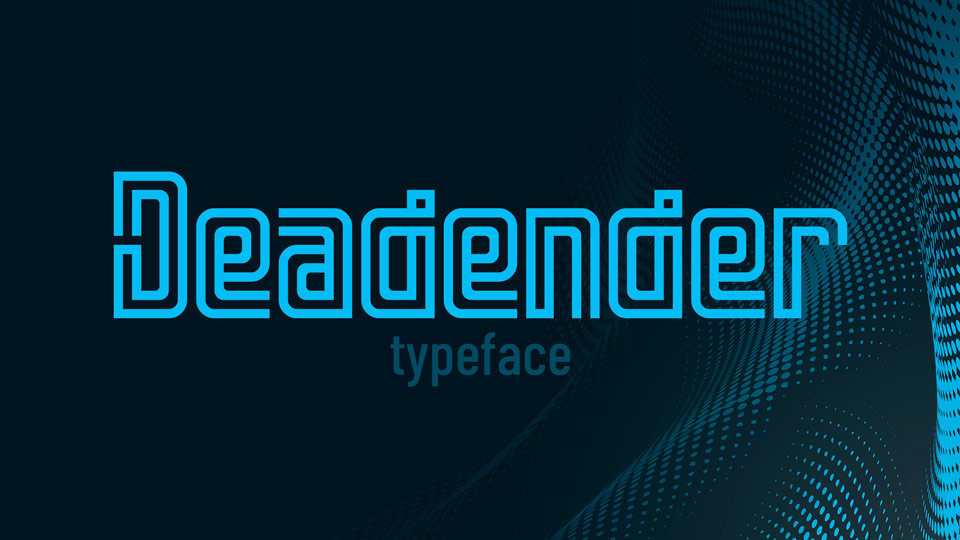
Download Deadender font, a creative geomertic typeface with a design based on loops and dead-ends. Deadender is great for logos, branding, neon style graphics, signage, posters and more.
Designer: Pixel Kitchen